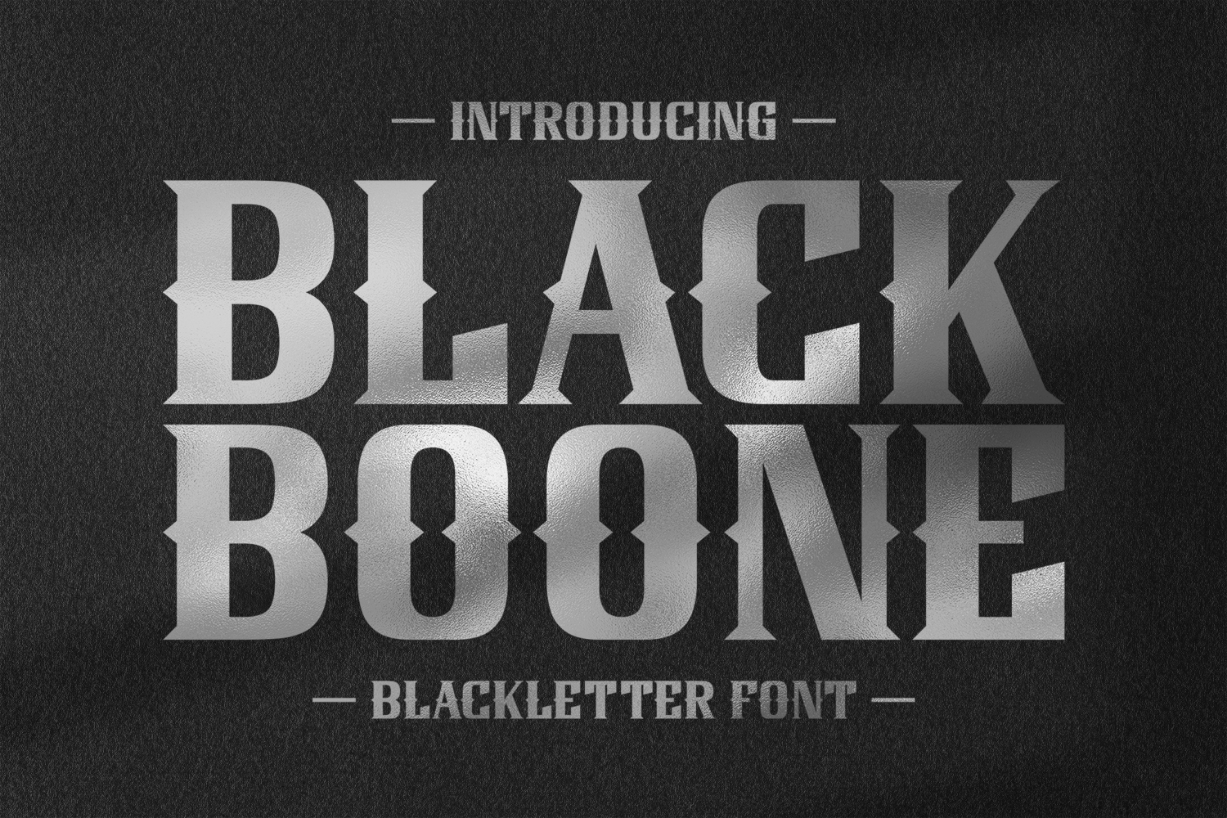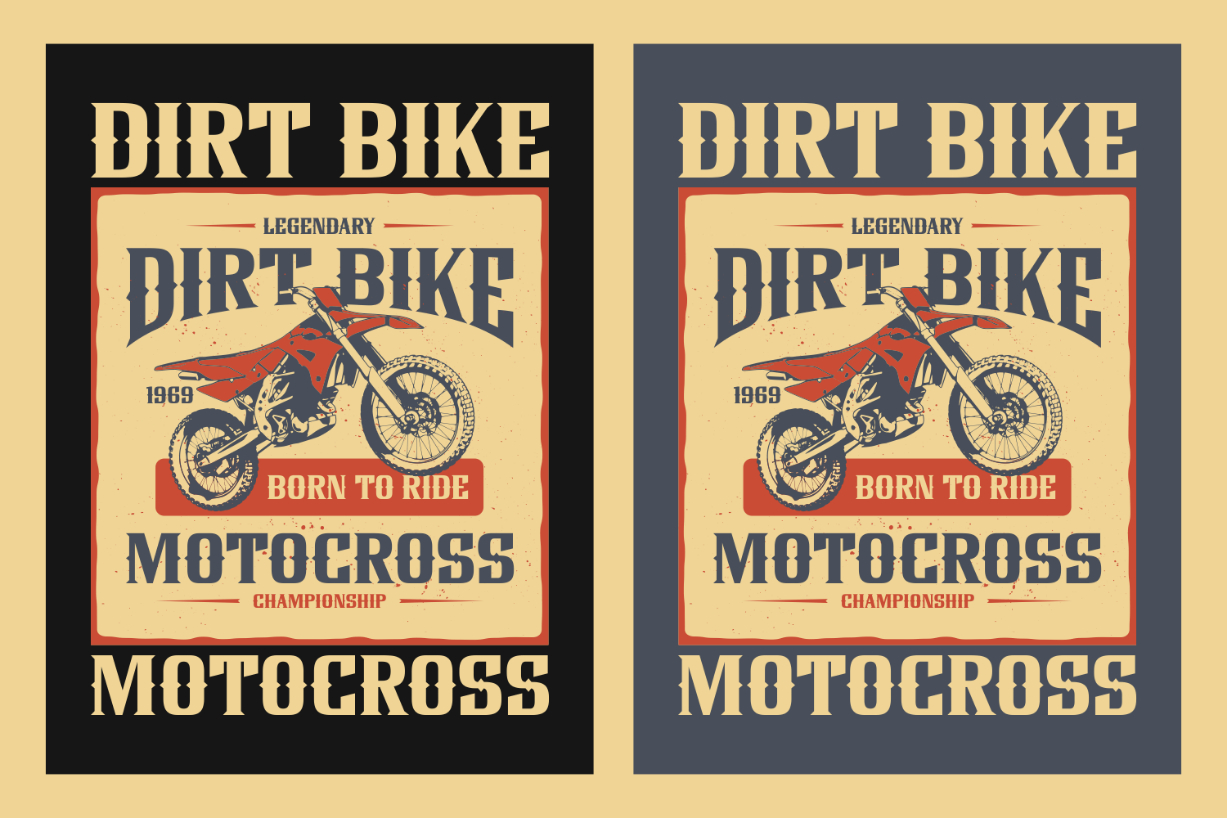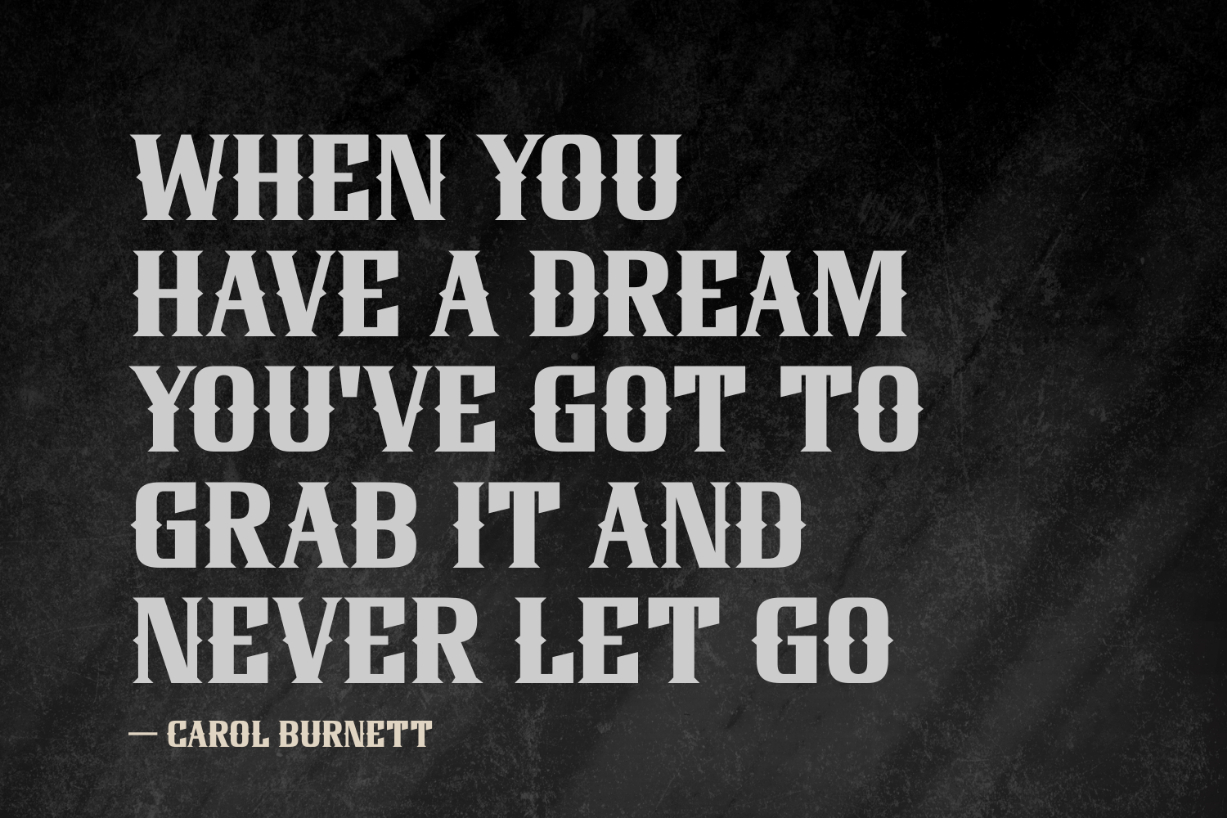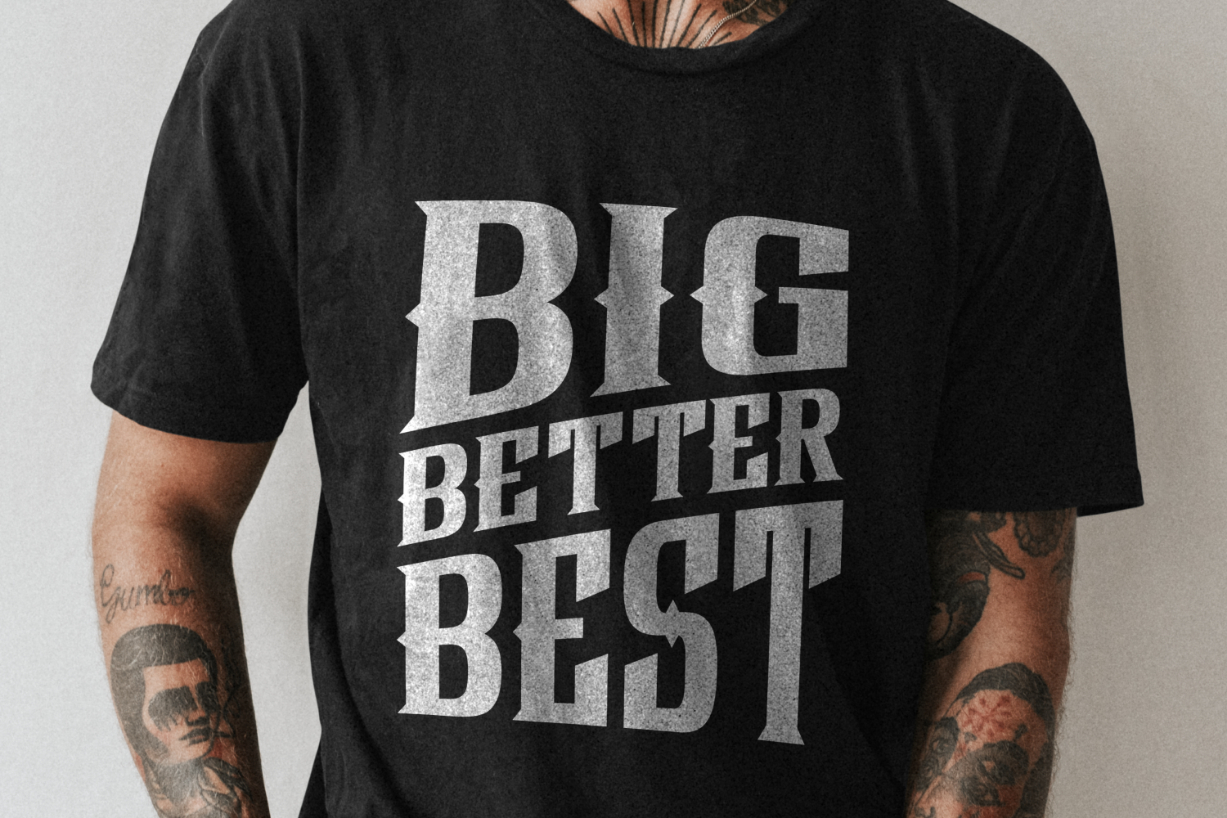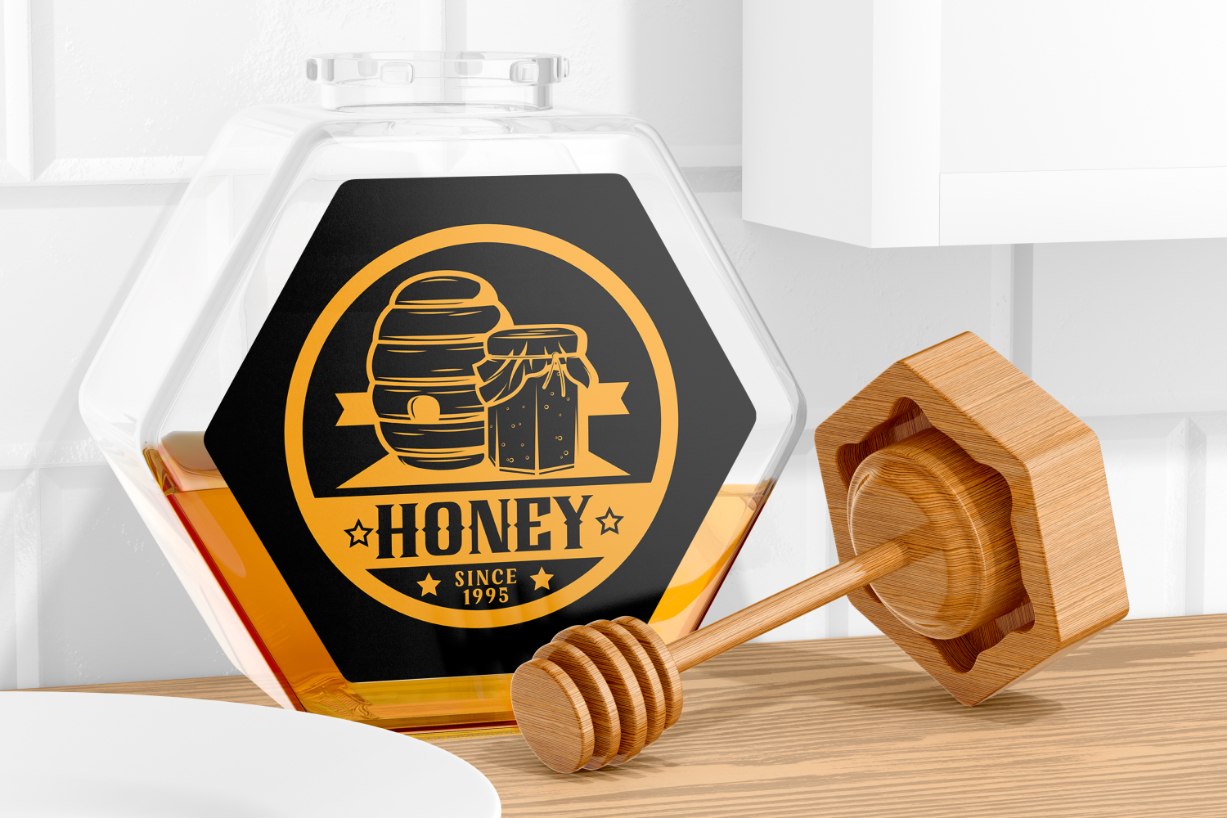
Black Boone Font
About Black Boone Font
Black Boone is a thick and elegant blackletter font. Create remarkable typography designs with this gorgeous font, suitable for a wide range of projects! It looks perfect on posters, t-shirts, product packaging, advertisements, cards, headers, book covers, and more.